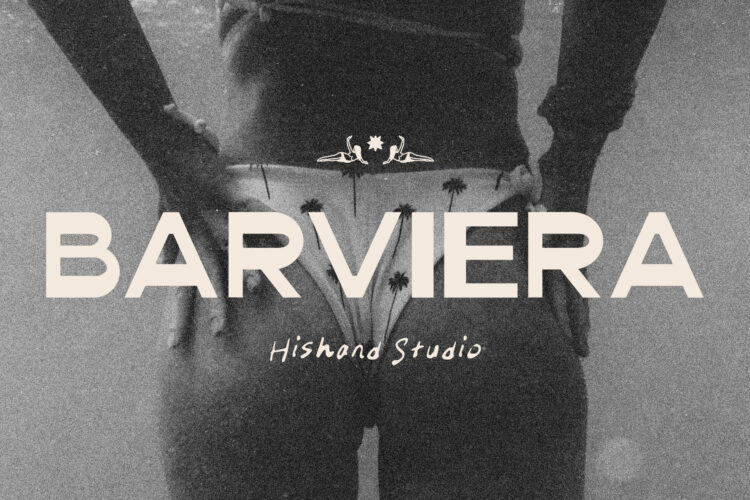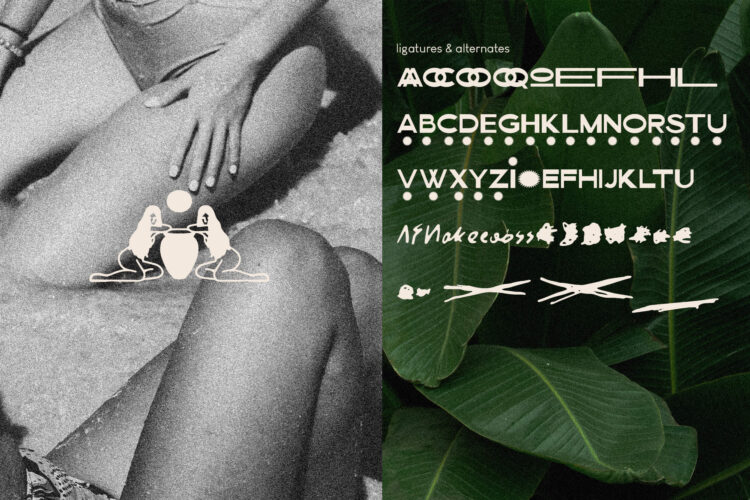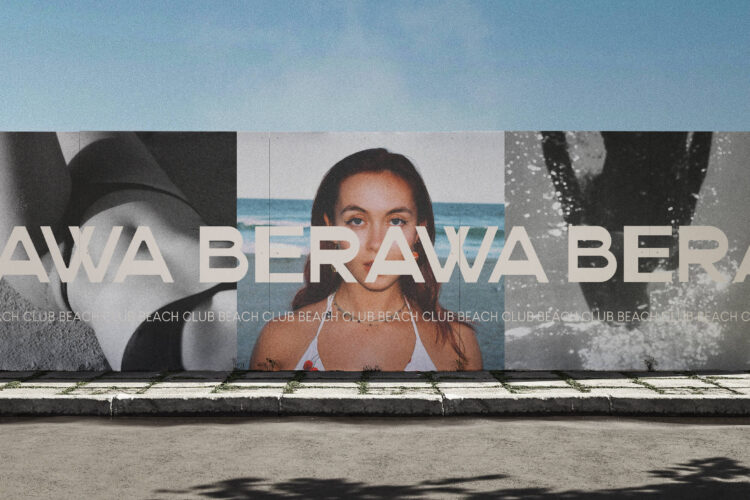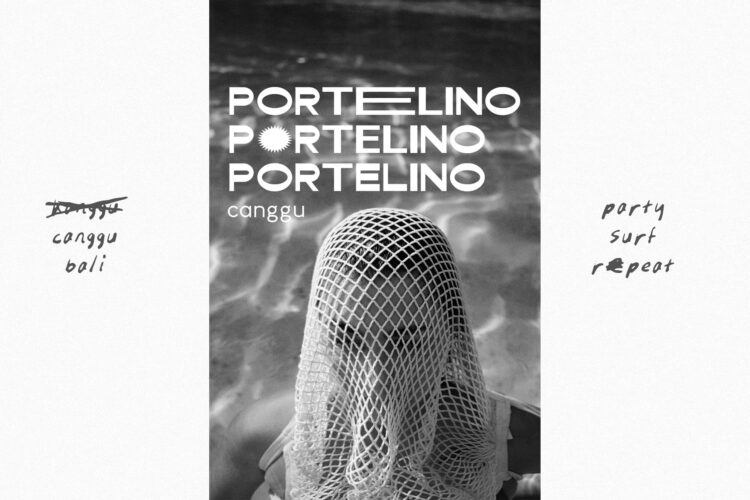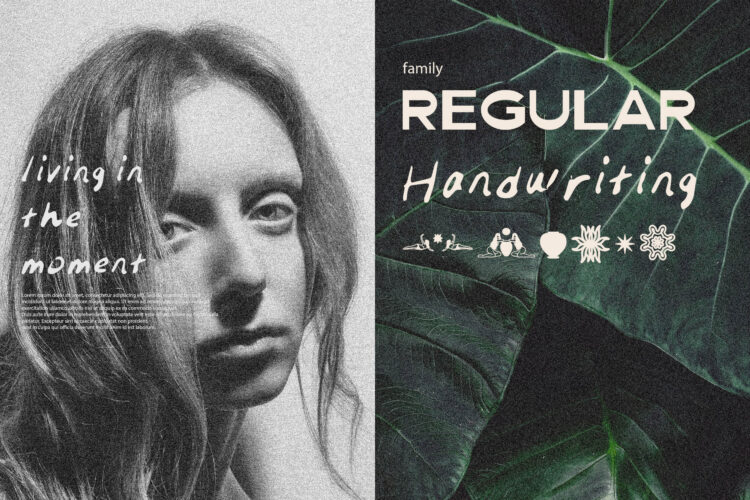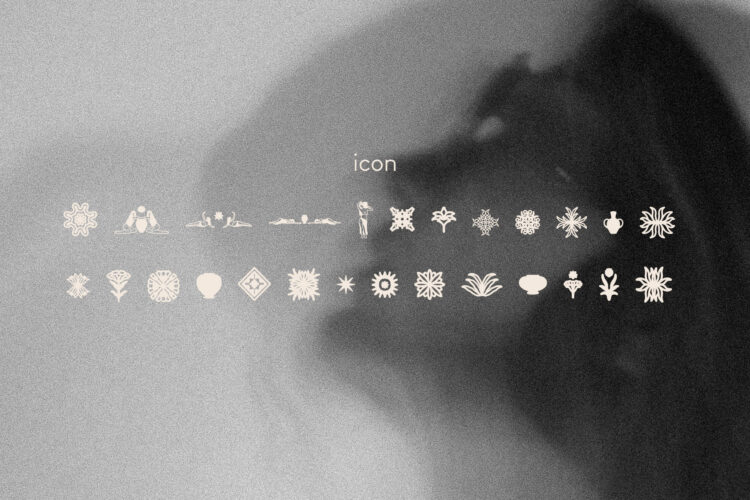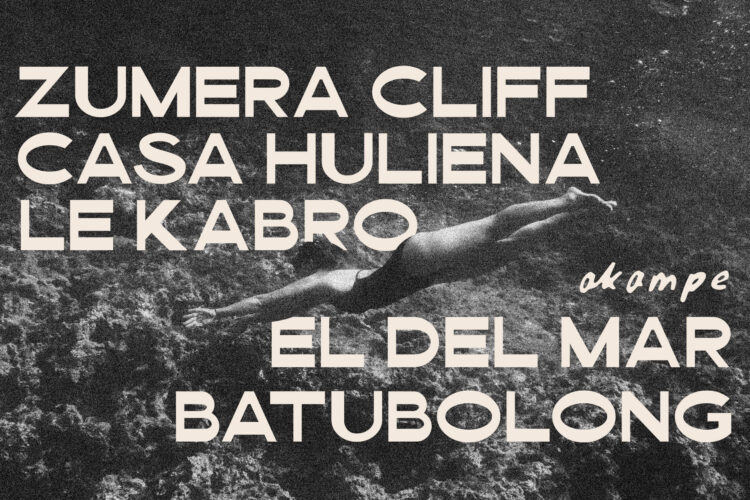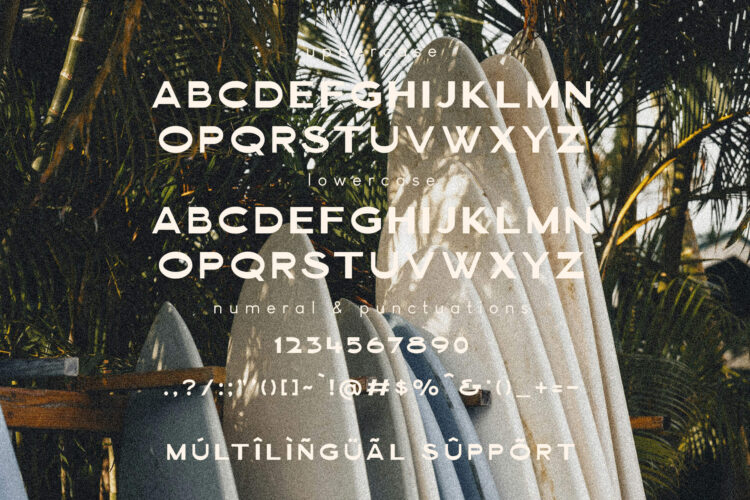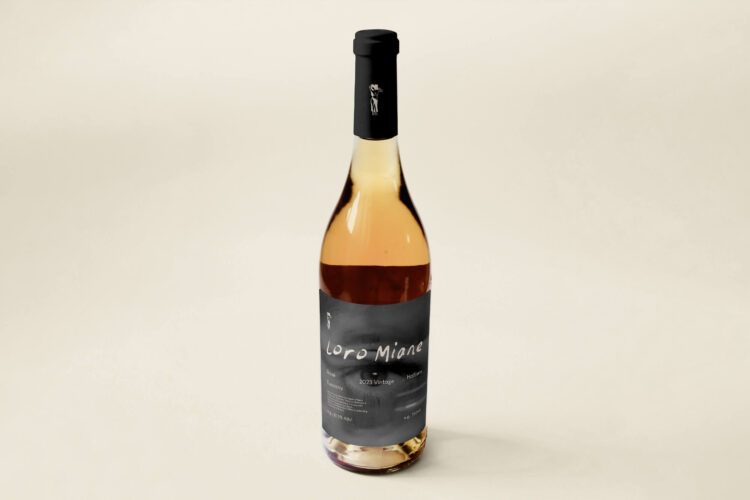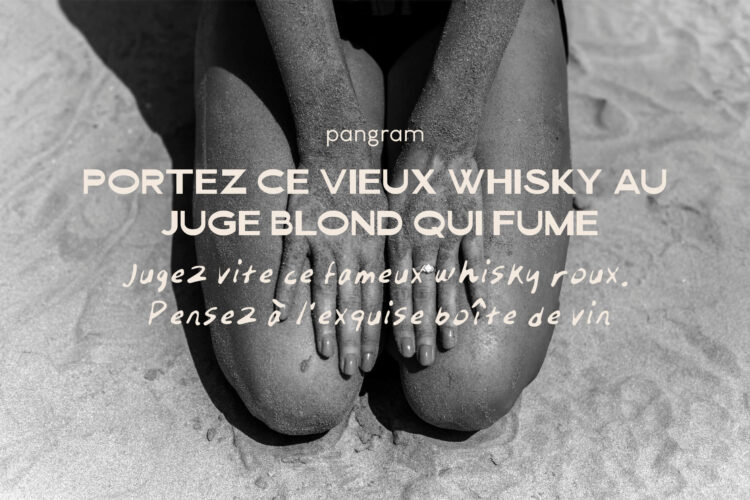
Meet your new go-to font Barviera, a bold and modern display sans-serif typeface made to capture attention effortlessly. Barviera combines clean geometry with a touch of playful charm, giving every word a fresh and confident personality. Designed for creative minds, this font turns simple text into something truly eye-catching and memorable.
Barviera’s letterforms are carefully shaped with smooth curves and sharp edges, creating a perfect balance between elegance and power. The result is a visual rhythm that feels dynamic yet refined — it never shouts for attention, but it always stands out. Each character is crafted to maintain clarity and consistency, making Barviera not only beautiful but also practical for everyday design use.
Whether you’re designing a logo, poster, social media visual, or brand identity, Barviera fits right in. Its bold personality makes it ideal for startups, fashion labels, lifestyle brands, or any creative project that needs a strong visual statement. From minimal designs to vibrant layouts, Barviera brings an instant sense of modern sophistication.
What makes Barviera special is its versatility. It can look sleek and professional in uppercase logos, or warm and approachable in sentence case text. This adaptability allows you to explore endless design possibilities while keeping your brand consistent and stylish.
Barviera doesn’t just complement your design it defines it. The font’s aesthetic flow captures the spirit of modern creativity: confident, clean, and effortlessly cool. Its bold strokes communicate strength, while the subtle details add a soft, artistic touch. Every curve and corner tells a story of thoughtful craftsmanship and creative balance.
Perfect for digital and print use, Barviera is built to perform well across different platforms. Whether viewed on a screen or in print, it maintains crisp edges and excellent readability. This makes it a reliable choice for designers who value both style and functionality.
In short, Barviera is more than just a font it’s a visual voice. It helps your brand speak clearly, stylishly, and with confidence. If you want a typeface that feels modern, creative, and full of character, Barviera is the perfect choice to elevate your next design project.
Complete with
- ligatures
- alternates
- regular
- hand-writing
- icon
- kerning
- multilingual support